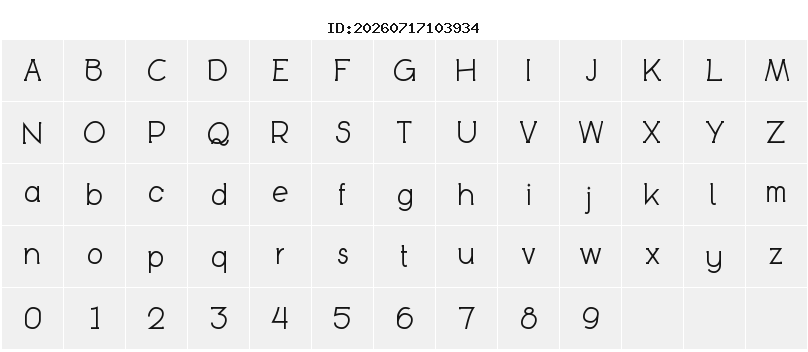
• Font Name: Bookietastic básica
• Designer: Yun González
About Bookietastic básica.ttf
Bookietastic básica.ttf is a modern, elegant sans-serif font designed for ultimate readability and visual harmony. Perfect for branding, headlines, web design, and print materials.